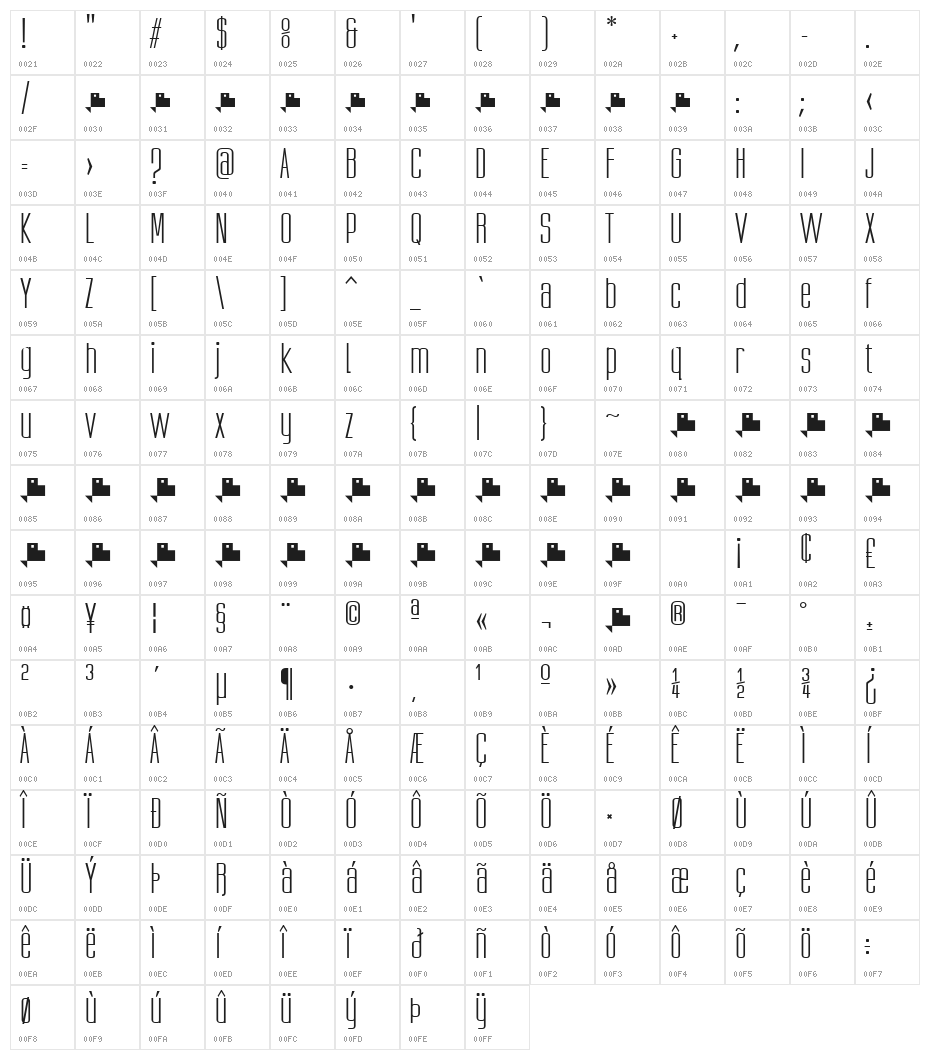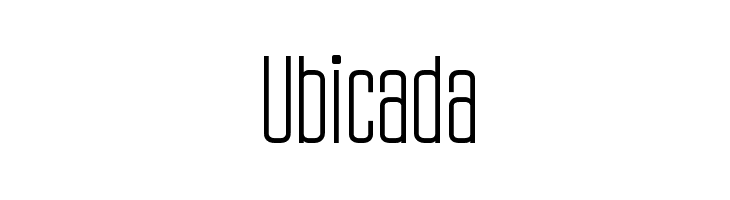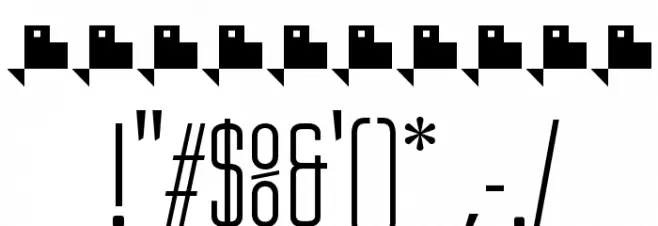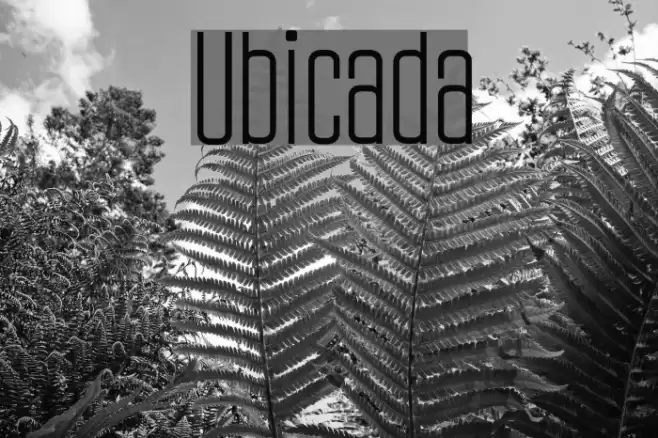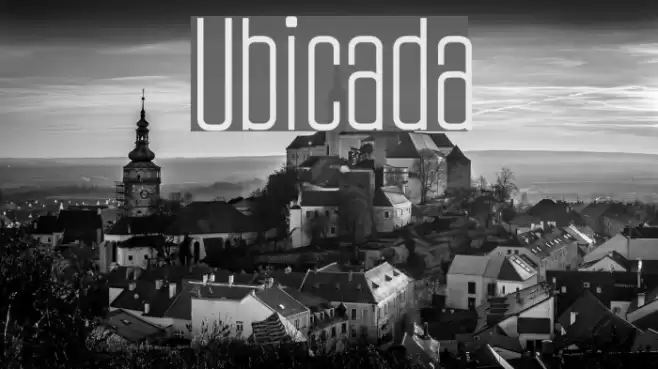
Ubicada Font
✎ Sans Serif
Ubicada Description
This font features a tall, narrow design with clean, straight lines and a modern aesthetic. The uppercase letters are uniform in height, while the lowercase letters maintain a consistent style that complements the uppercase. The numerals and special characters follow the same sleek design, making them easily readable. The font's geometric structure gives it a contemporary feel, suitable for various digital and print applications. Its minimalistic approach is balanced by a slight touch of elegance, making it versatile for different design needs.
| Proposed Projects | Ideal for branding, advertising, posters, and digital media where a modern and sleek look is desired. |